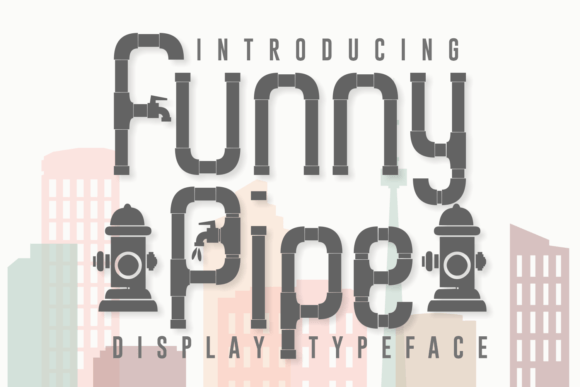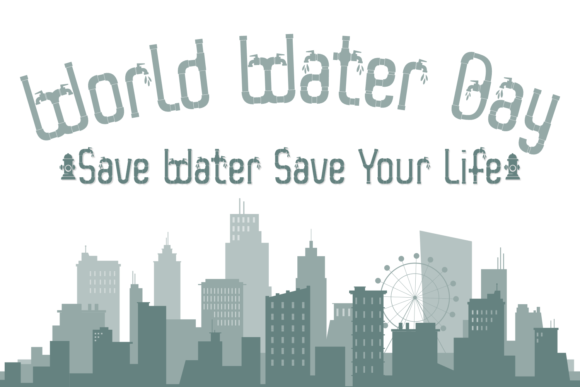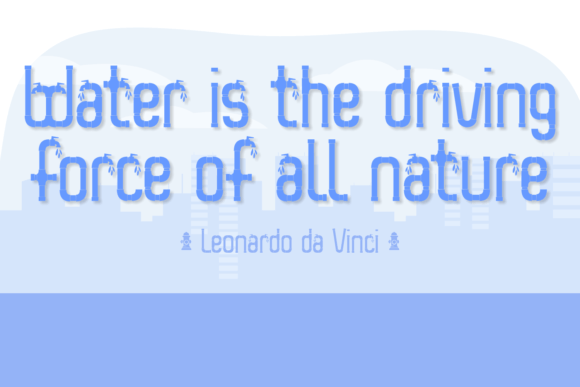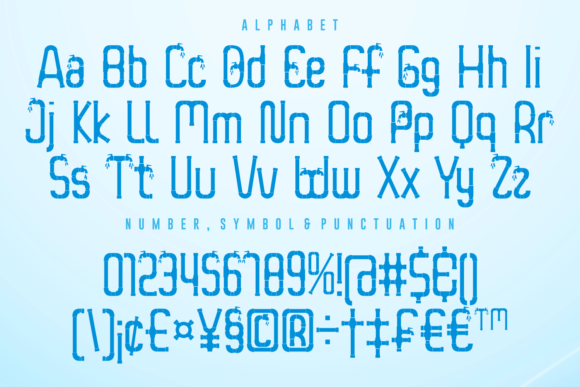
Funny Pipe Font
About the Funny Pipe Font
Experience the unique personality of Funny Pipe Font, a font designed for impact. Funny Pipe is a fun and quirky decorative font. It is ideal for plumbing and awareness themes, as well as others. Enhance your creative design projects by using this unique typeface!
This font is PUA encoded, so you can easily access the extra hydrant glyph!
Funny Pipe’s playful, slightly quirky personality makes it perfect for headlines, logos for playful brands, short slogans, and eye-catching packaging designs. It’s also a great choice for posters and social media graphics where a touch of whimsy is desired. However, its decorative nature makes it unsuitable for body text or lengthy paragraphs; readability suffers at smaller sizes.
Consider pairing Funny Pipe with a clean sans-serif like Open Sans for a balanced contrast, or a more geometric sans-serif such as Montserrat for a modern feel. For a touch of sophistication, a classic serif like Garamond could unexpectedly complement its quirkiness, grounding the design. Avoid pairing it with other highly decorative fonts, as this could lead to visual clutter.
Its overall mood is lighthearted and friendly, but maintains a level of visual sophistication that prevents it from appearing childish. This makes it adaptable to a broad range of projects, from children’s books to quirky coffee shops, provided it’s used strategically for impactful elements rather than large amounts of text.